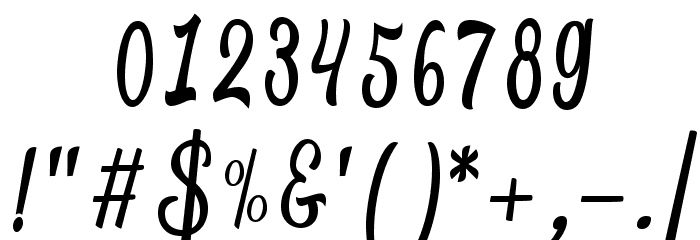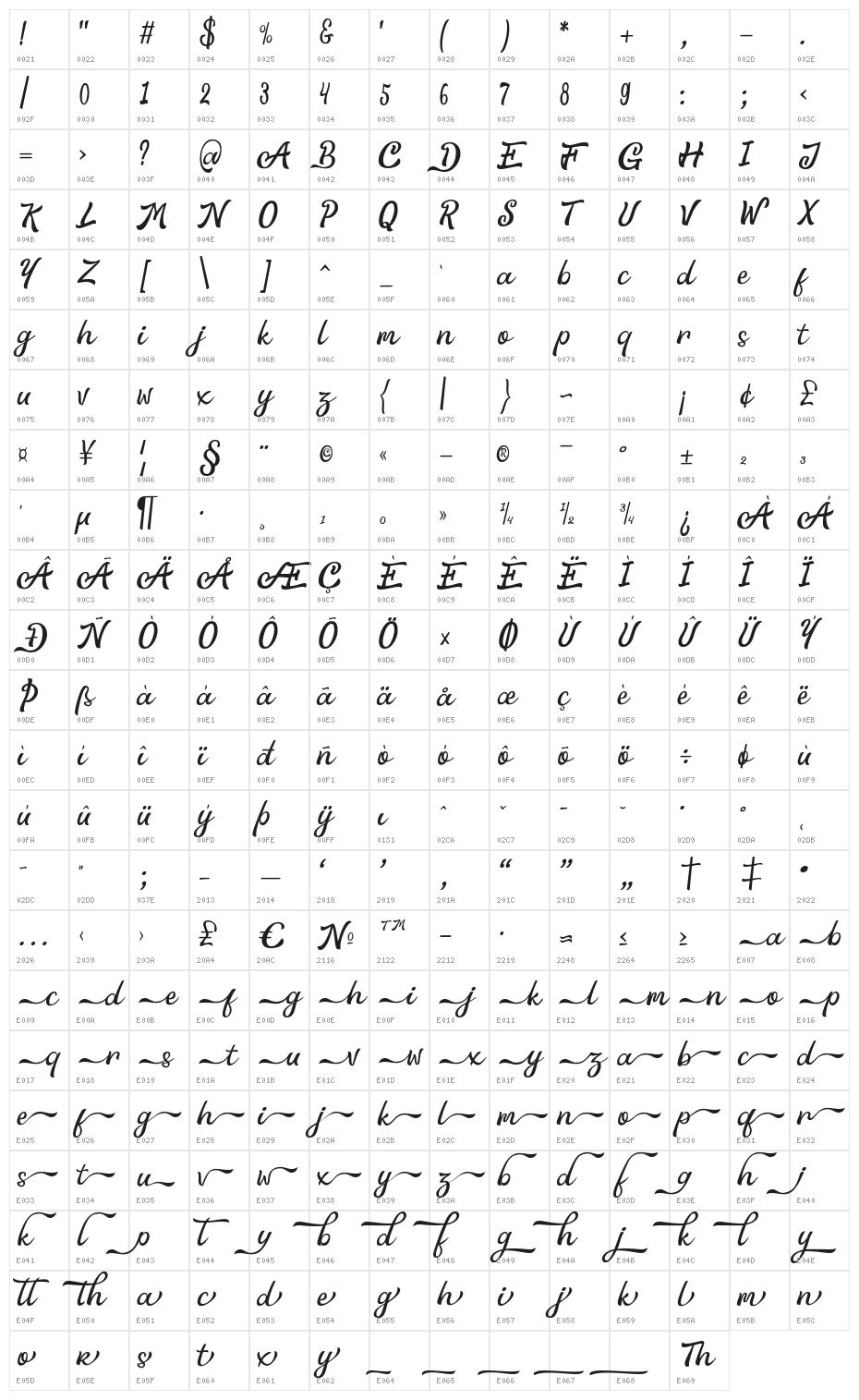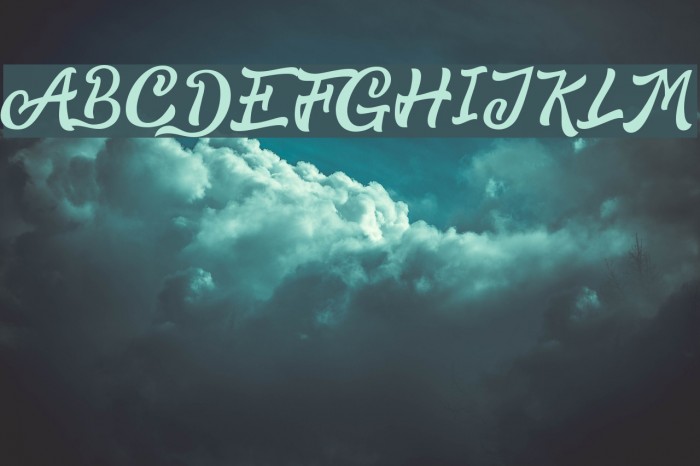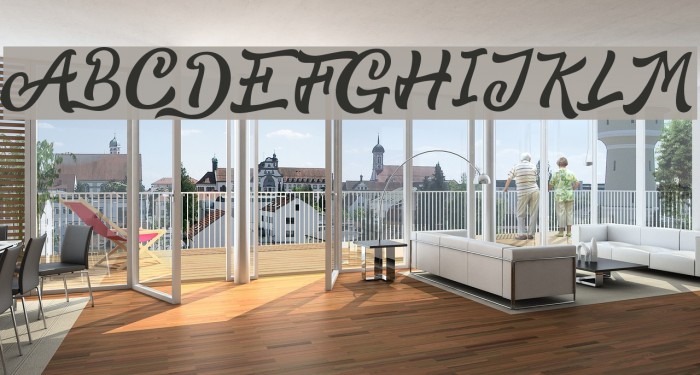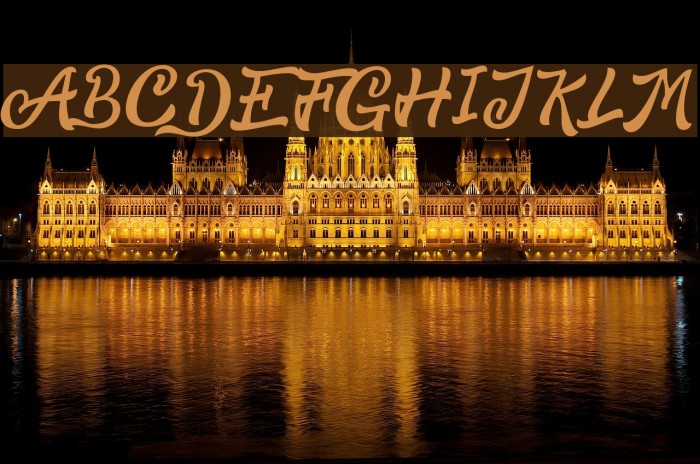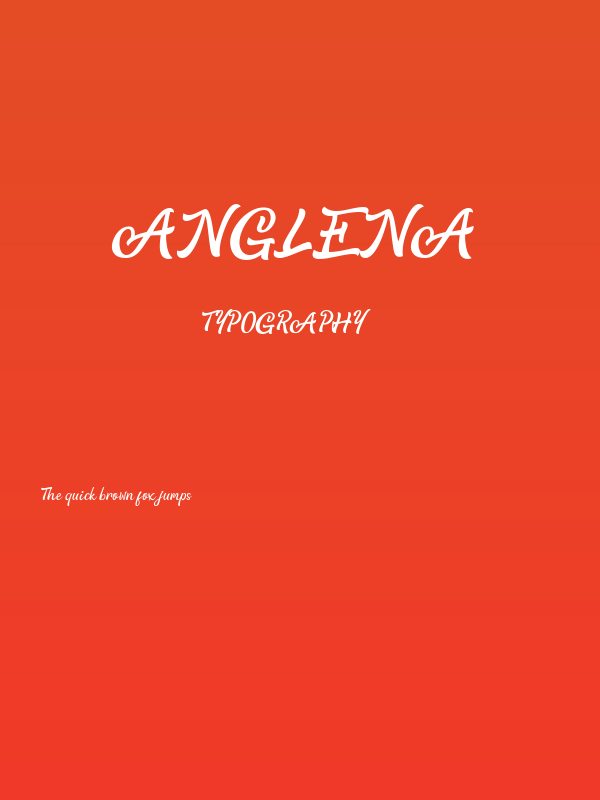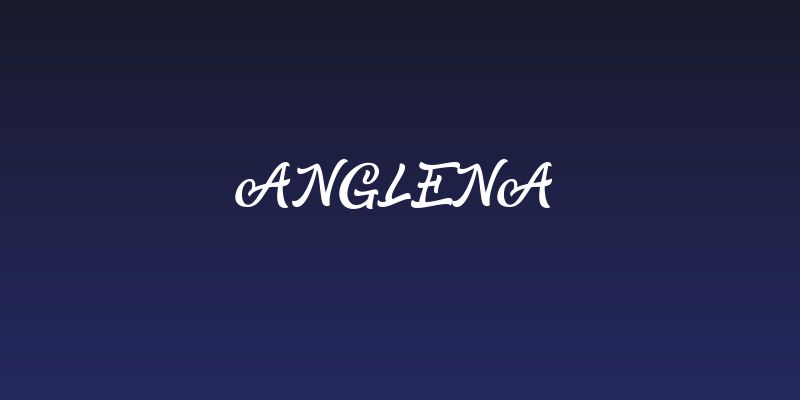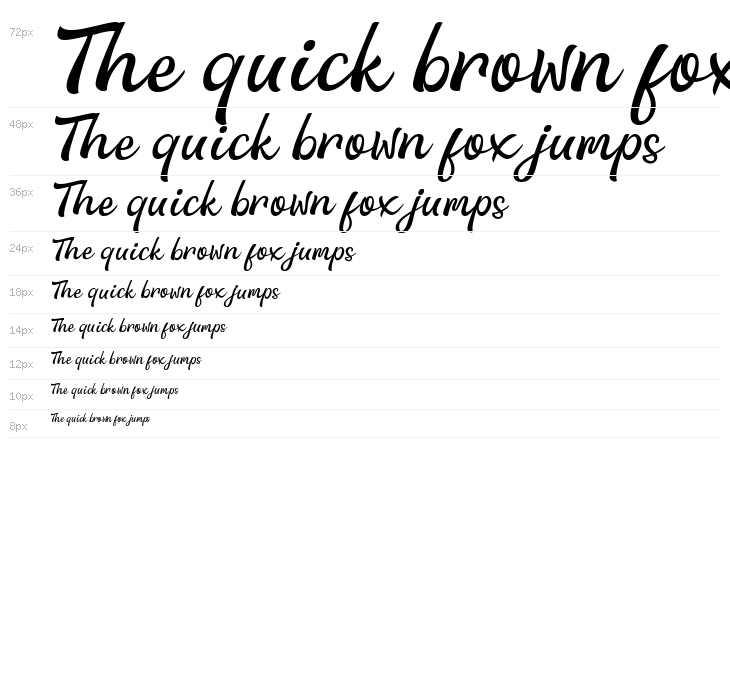
Anglena Font
Anglena Description
This font features a dynamic and flowing script style, characterized by its elegant and fluid letterforms. The uppercase letters exhibit a graceful, cursive design with smooth curves and a slight slant, giving them a sophisticated and artistic appearance. The lowercase letters maintain this fluidity, with consistent stroke widths that enhance readability while preserving the font's decorative nature. Numerals are designed to complement the overall style, with a similar slant and curvature. Special characters are seamlessly integrated, maintaining the font's cohesive and stylish look. This font is ideal for projects that require a touch of elegance and creativity.
| Proposed Projects | Ideal for wedding invitations, greeting cards, branding, and elegant logo designs. |